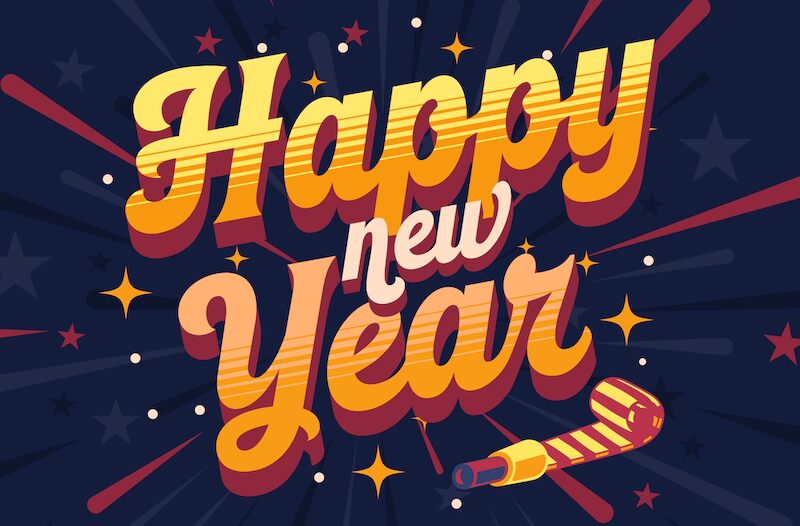
Newpitch Script PERSONAL USE Regular
Newpitch Script font is a creation of Måns Grebäck, a skilled typographer and designer. A free brush font with elegant ornamental accents that adds lovely and expressive flair to text with its flowing curves. With a mood inspired by vintage sports branding, Newpitch script font brings retro typography’s unique feel to your designs.
Get your creative juices flowing with this incredible font for logos, inspirational quotes, apparel prints, social media posts, titles in books or magazines, invitation cards & event stationary headers or footers. Its decorative aspect also adds visual appeal to product packaging especially beauty products. It will equally look magnificent as part of wedding photography!
Use an underscore _ anywhere in a word to create an underline.
Example: Super_star
You can use multiple underscores to create longer swashes.
Example: Base____ball